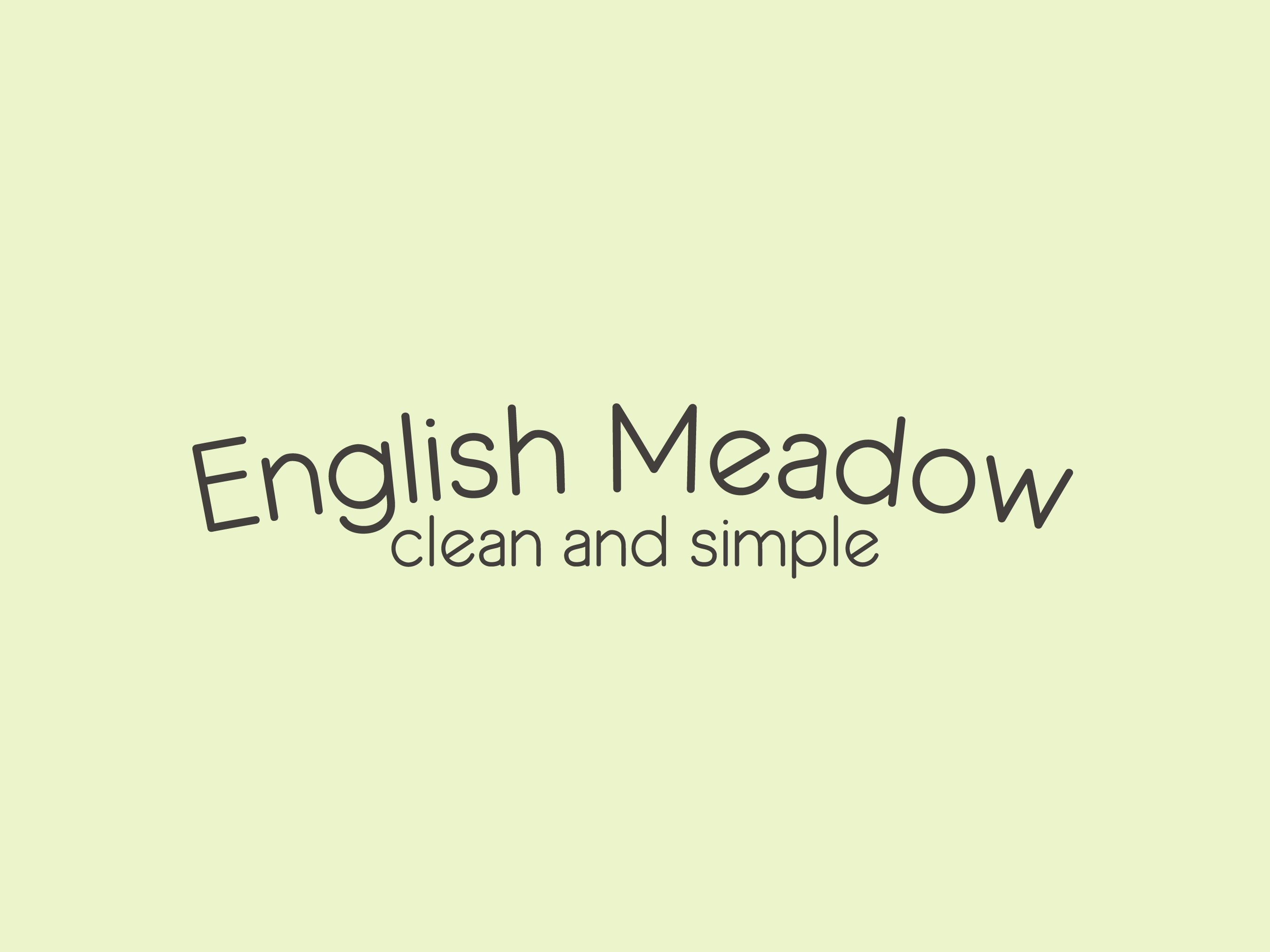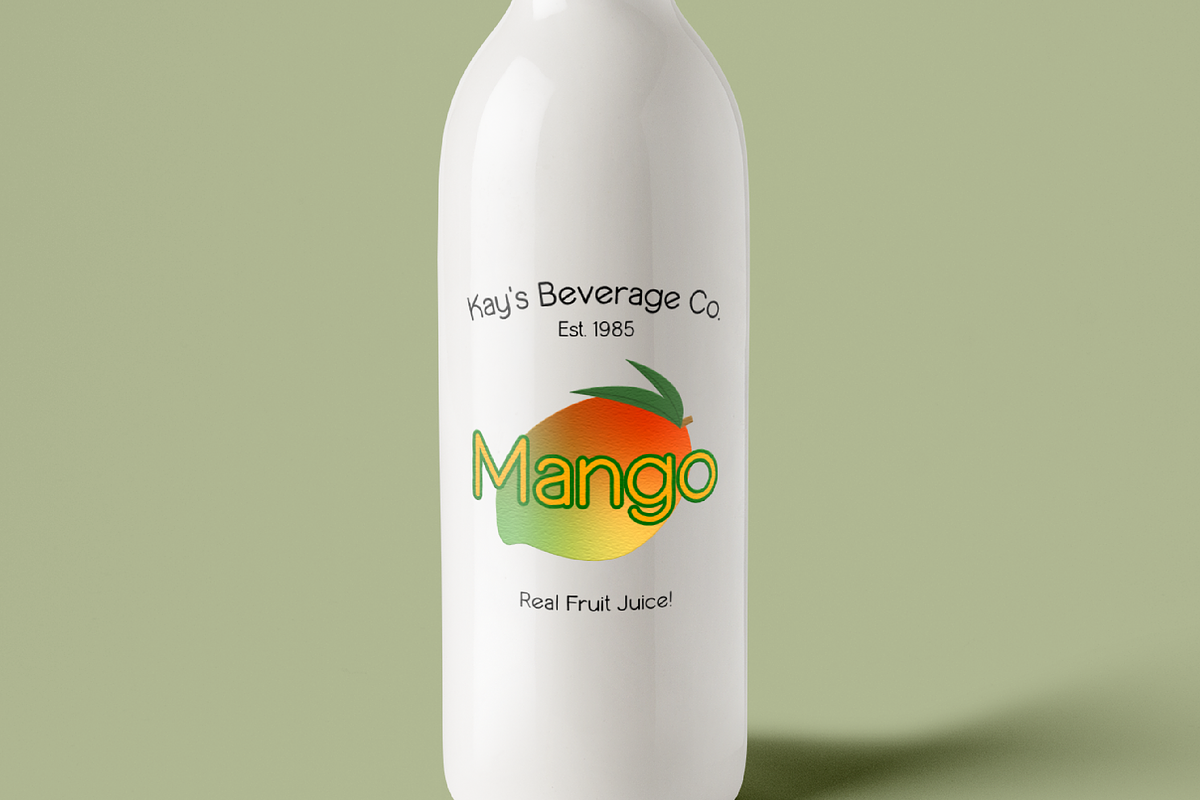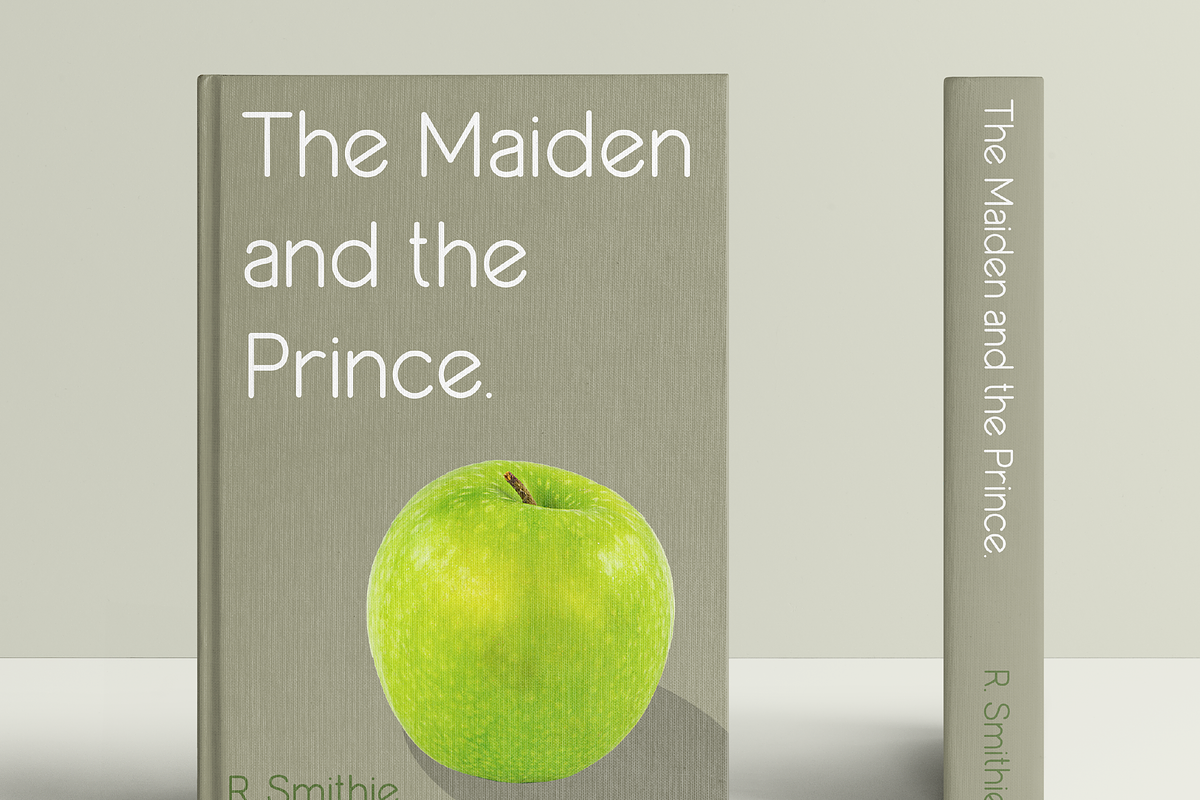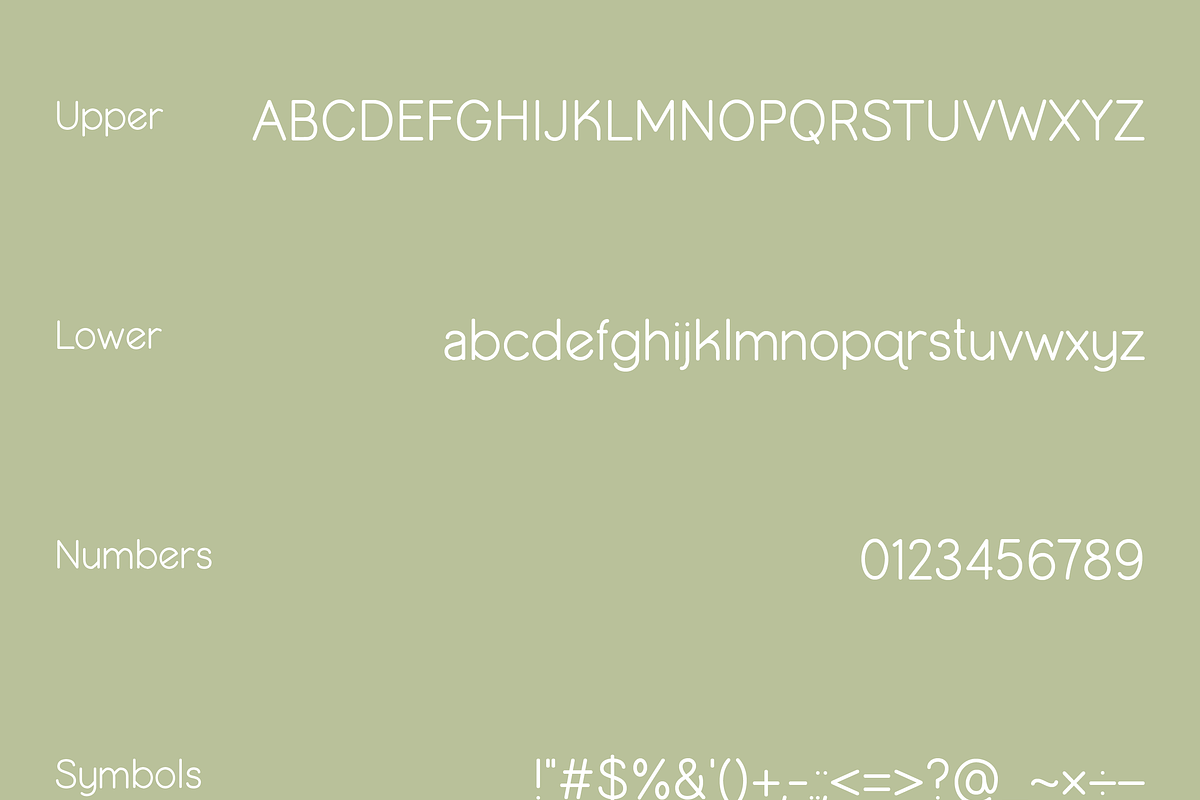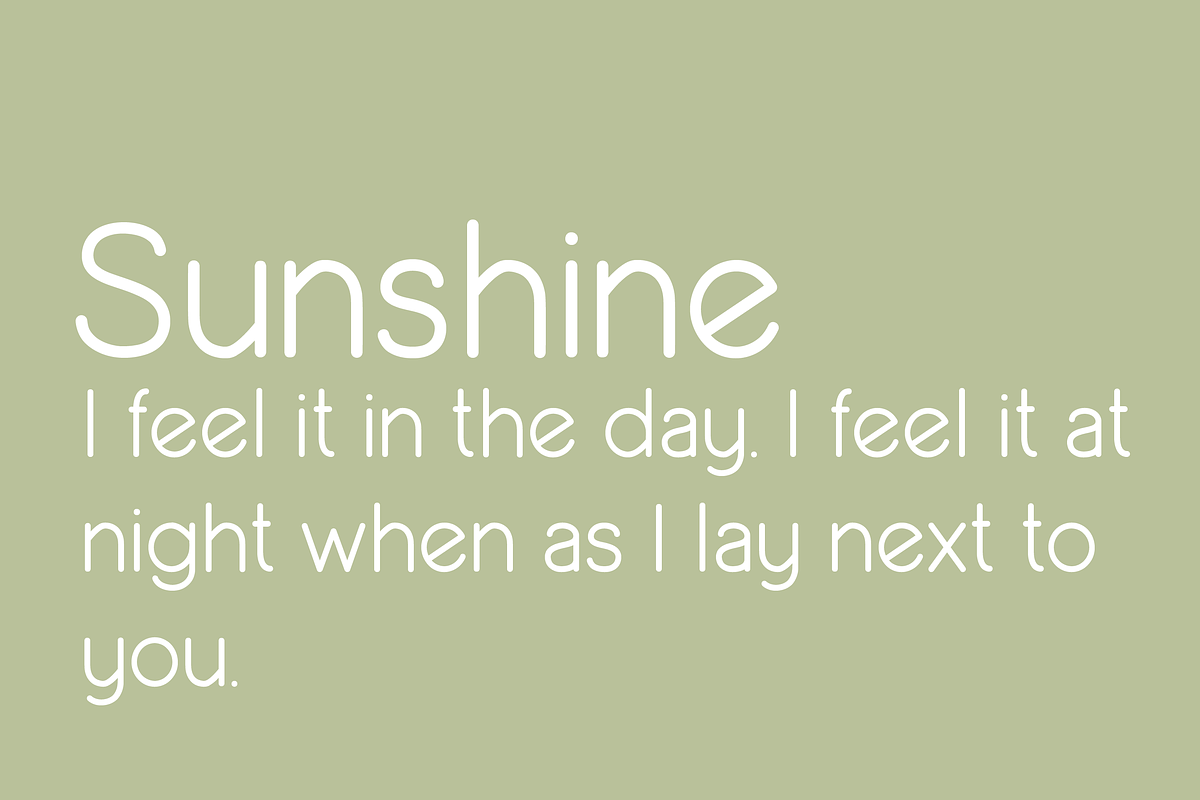
English Meadow Font
English Meadow is a clean typeface with subtle details that help set it apart. It’s easily legible, fun, and perfect for labeling and making personalized cups, shirts, and more! Use this beautiful, handmade, sans-serif font to decorate any home.
Great for branding, crafting, display font, wall art, handcrafted, hand written, handwritten, digital planner, and so much more.